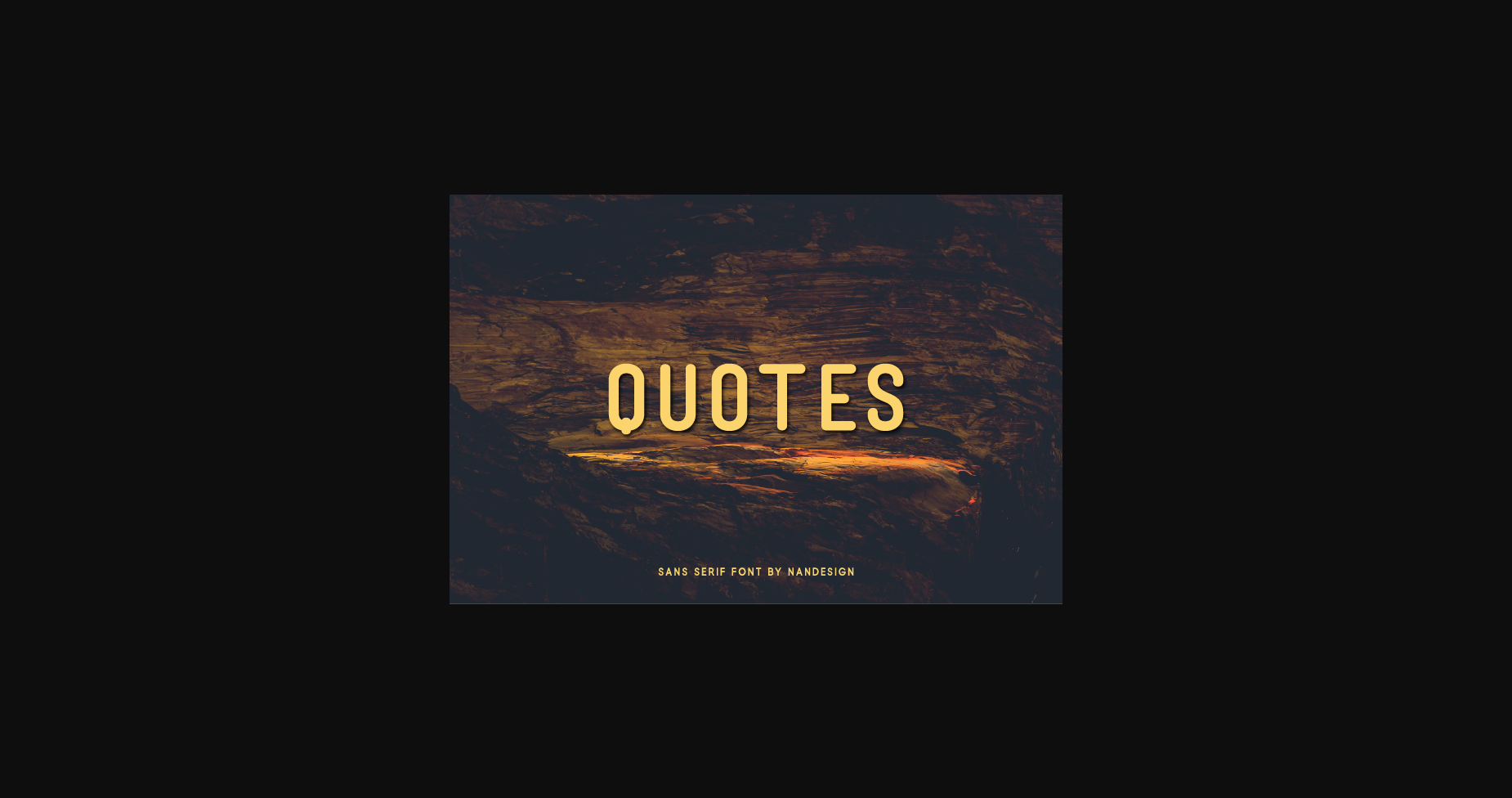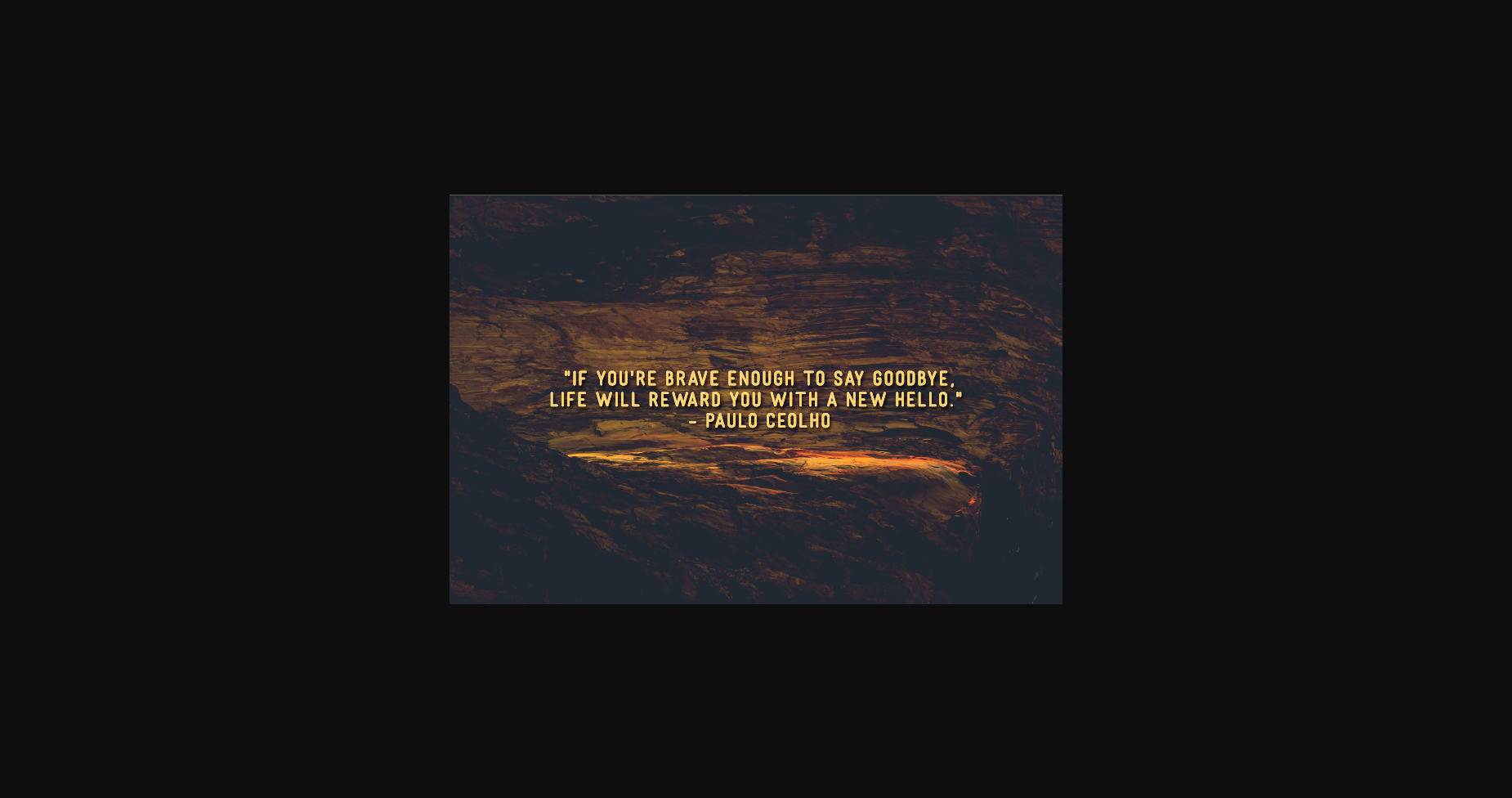
About Quotes Font
Quotes is a clean, slim and simple sans serif font.
It is perfect for product packaging, branding project, magazine covers, social media, wedding, or just used to express words above the background.